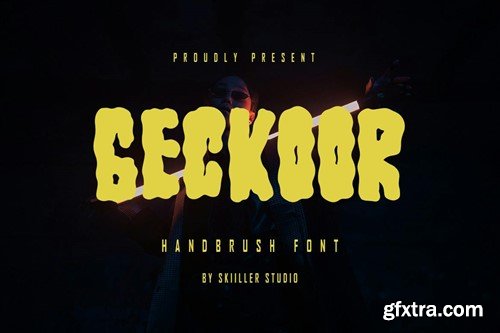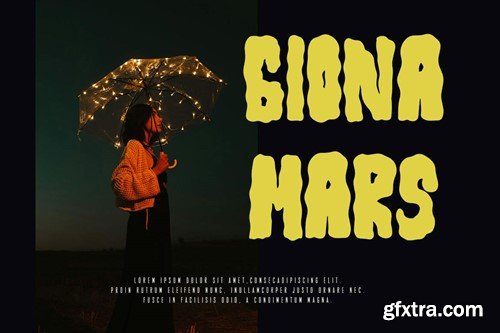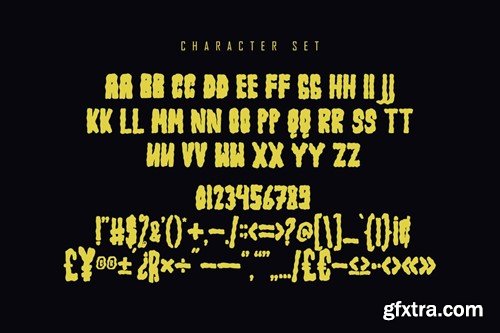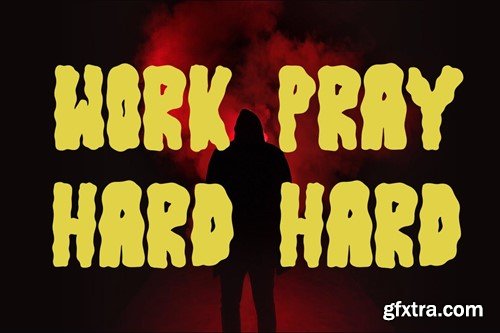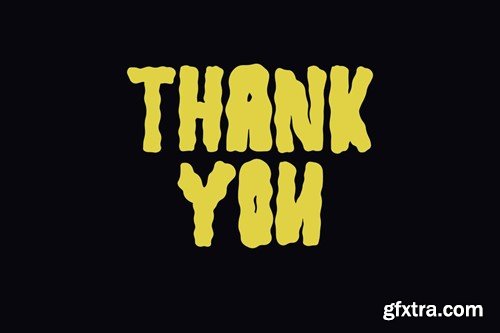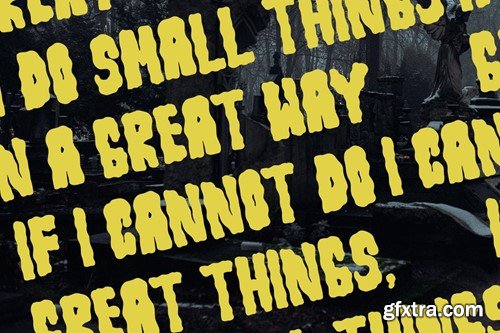
Geckoor - Handbrush Font BKKQLHD
Geckoor - Handbrush Font
Geckoor brush Font. It looks beautiful on a variety of designs requiring a personalized style, such as wedding invitations, thank you cards, weddings, greeting cards, logos and so on. This font is PUA encoded which means you can access all of the glyphs
• Basic Latin Language Support (AÀÁÂÃÄÅCÇDÐEÈÉÊËIÌÍÎÏÑOØÒÓÔÕÖUÙÜÚÛWYÝŸÆß )